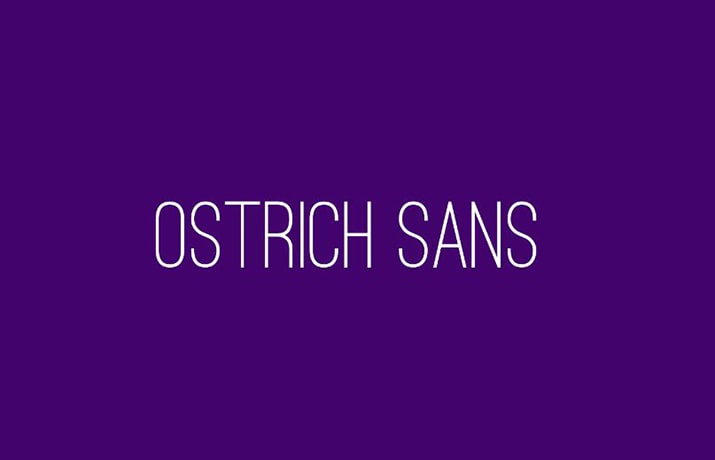
Ostrich Sans Font is a gorgeous sans serif typeface that features a minimal letter design that’s ideal for crafting headings and text with a modern look.
An American font designer Tyler Finck has taken the charge of all rights reserved. And he shared this basic font for the first time in 2011.
This font family with a very long neck is inspired by the flightless bird ostrich. It has a premium high-resolution letterpress family with exceptional realism and vintage charm.
With a fully customizable baseline, extensive languages support advanced features and a versatile appearance. It is ideal for the purposes of any large display design work.
Along with advanced features, it can be used for various designing purposes like logos and branding, invitations, stationery, wedding designs, social media posts as well as many other related approaches.
This typeface is available in eight unique styles with stunning open-type formats. This typeface has 101 characters in some styles, including medium, and bold black.